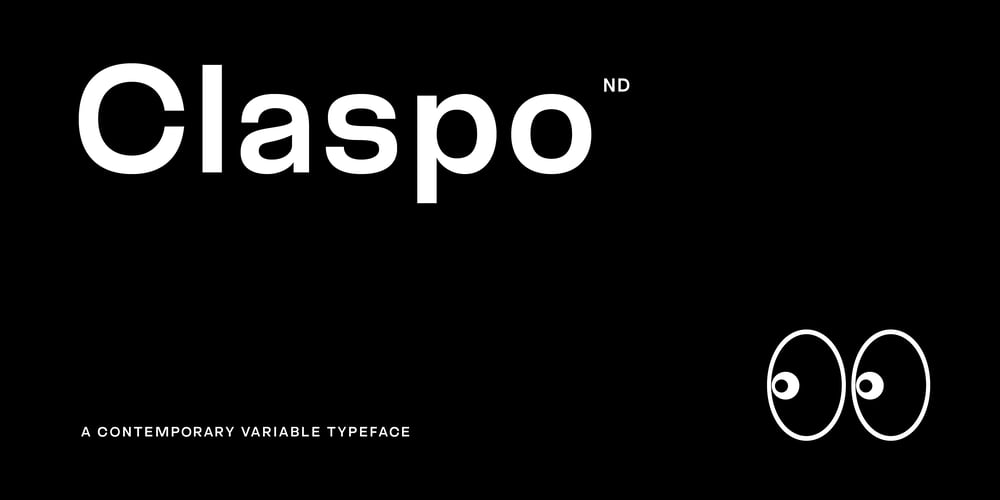
Claspo ND Font Family was designed by Nicolas Deslé and published by Nicolas Deslé. Claspo ND contains 7 styles and family package options. Claspo ND is a contemporary neo-grotesque display typeface that gets more vigorous as its weight increases. It comes in 6 styles and has a variable typeface — with full Latin Plus language support.Features: Stylistic Sets + Alternates Contextual Alternates Standard & Discretionary Ligatures Case-Sensitive Forms 495 Glyphs/Style Fractions Tabular Figures Icons & Arrows